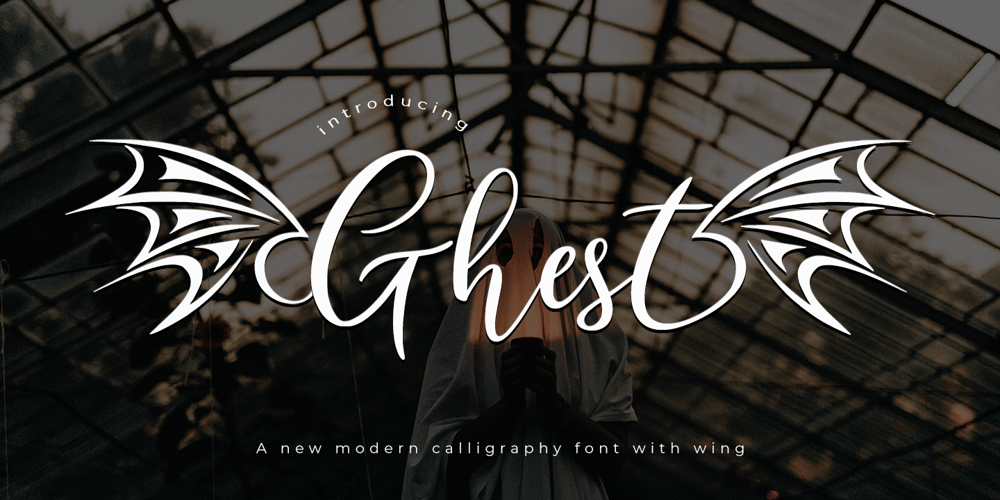
Ghest
Ghest font
Ghest Font Family was designed by Muhammad Zaini and published by Cocodesign. Ghest contains 1 styles and family package options. Introducing Ghest, a sleek and modern script font that exudes style and sophistication. With its flowing lines and elegant curves, this font is perfect for creating a high-end, luxurious look. Whether you’re designing a logo, branding materials, or any other project, Ghest will add a touch of class and refinement to your work. Its clean and contemporary design combined with the intricate wings aleternates makes it versatile and suitable for a wide range of applications.